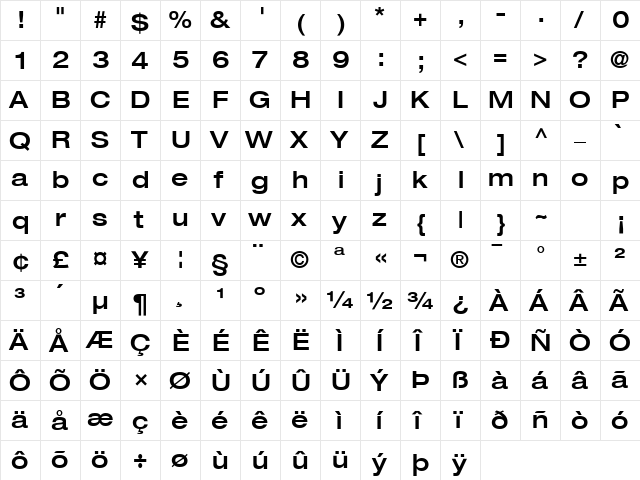
Context Reprise MediumExp SSi Normal
Design Context for Context Reprise MediumExp SSi Typeface
Context Reprise MediumExp SSi takes a measured approach to typography — its balanced proportions and neutral character make it a reliable workhorse for both digital and print work.